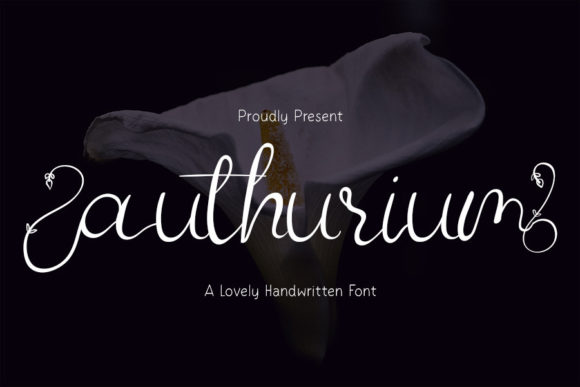
About Authurium Font
Authurium is a stylish and delicate script font. It has a clean, thin and smooth vibe and it will be a hit for any design that you want to add it to. Authurium is PUA encoded which means you can access all of the glyphs and swashes with ease!